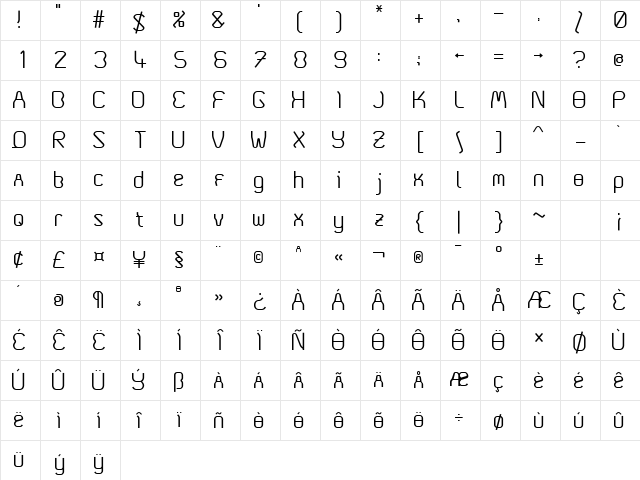
Coma01 Regular Free Font
Coma01 Regular
Design Context for Coma01
Coma01 is a composed and adaptable typeface that performs quietly and consistently across a wide range of design contexts.